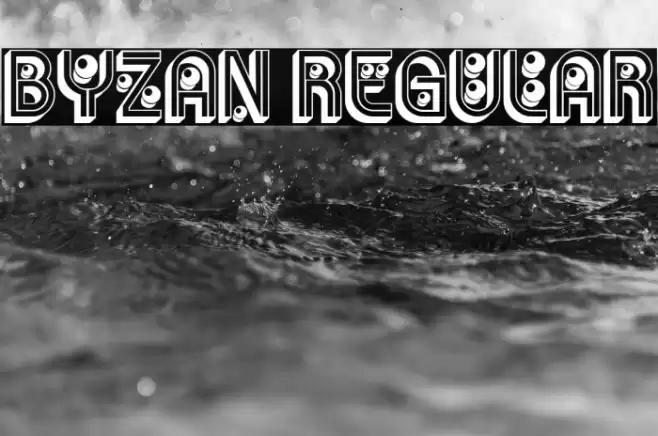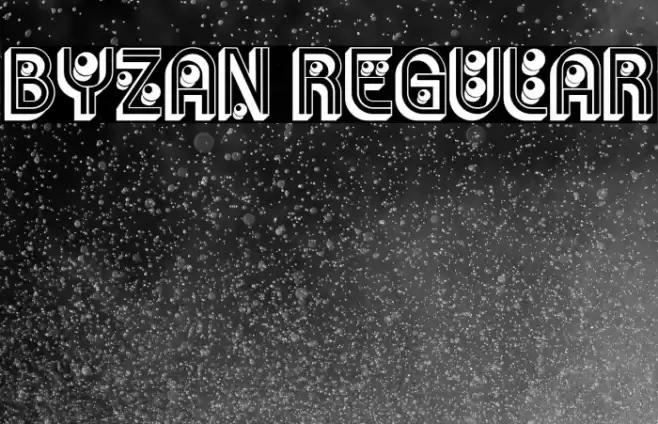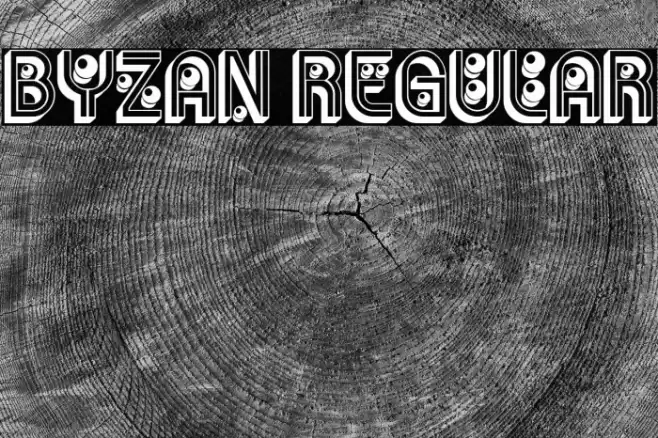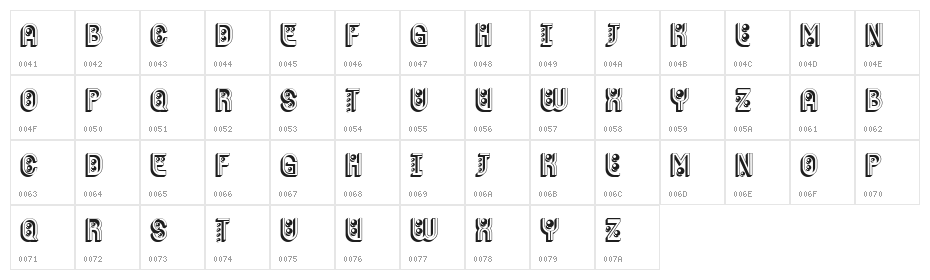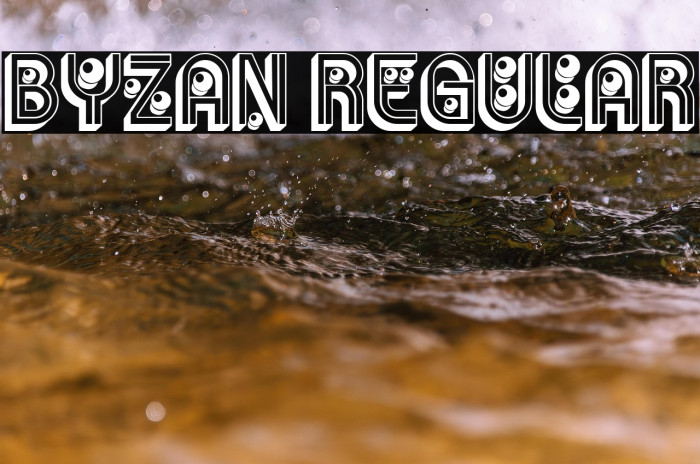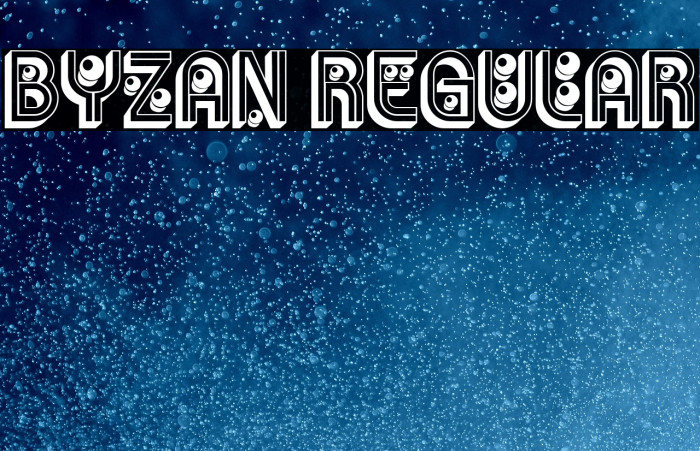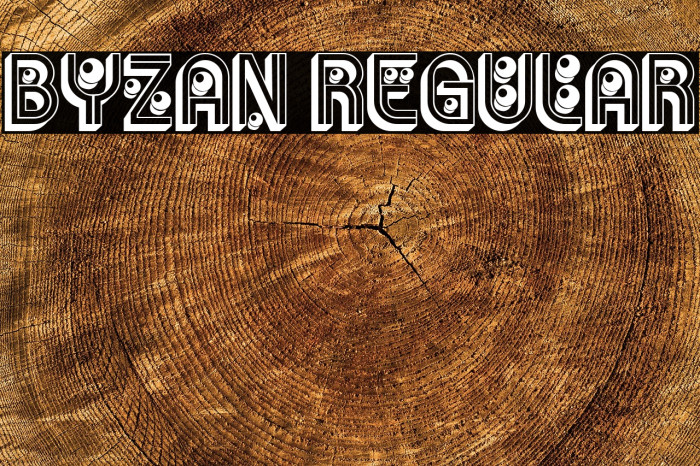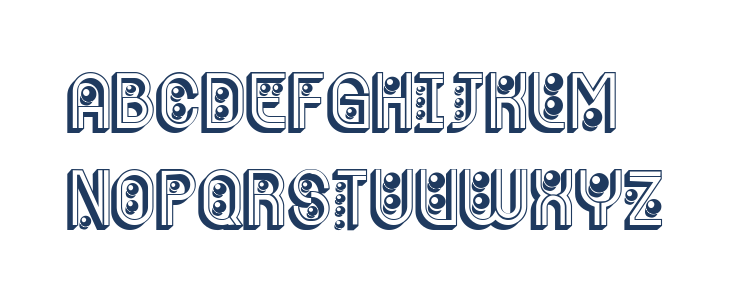
Byzan Regular Font
Byzan Regular Description
This font features a bold, decorative style with a unique, layered design. Each character is outlined with a thick border, creating a three-dimensional effect. The interior of the letters is adorned with intricate dot patterns, adding a playful and artistic touch. The overall appearance is striking and eye-catching, making it ideal for projects that require a strong visual impact. The uppercase letters are consistent in height and width, maintaining a uniform look across the alphabet. The font's design is both modern and retro, blending contemporary aesthetics with vintage charm.
A bold, decorative font with a three-dimensional, patterned design from Decorative fonts.
- Proposed Projects: Ideal for posters, album covers, branding, and any project needing a bold, artistic statement.
- Overall Style: Modern, Vintage